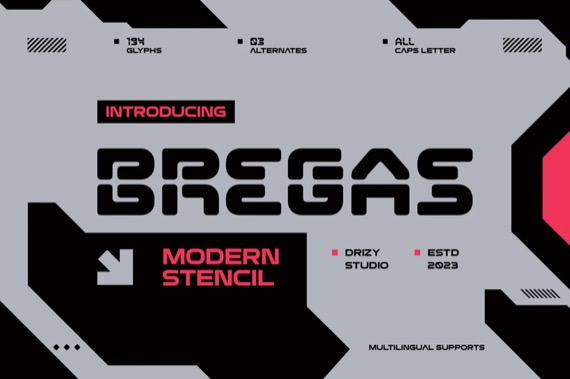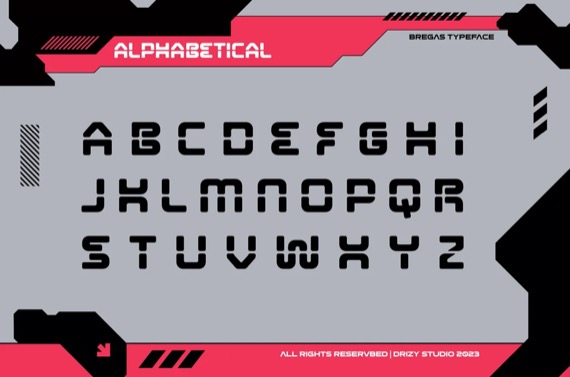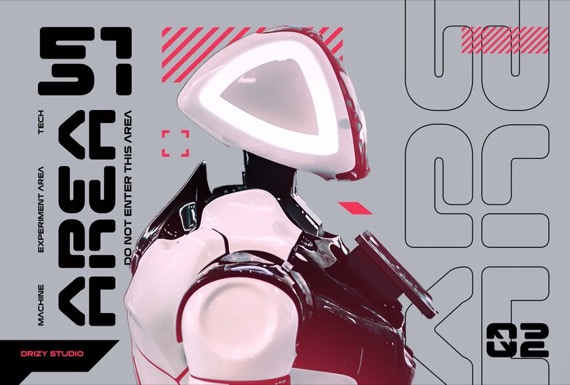
Bregas is an elegant and Modern Stencil Display Font, it is a cutting-edge typeface that effortlessly blends modern aesthetics with a touch of industrial design. This versatile font family is designed to make your projects stand out, giving them a futuristic, high-tech look that captures attention and leaves a lasting impression.
Bregas Stencil Display Font